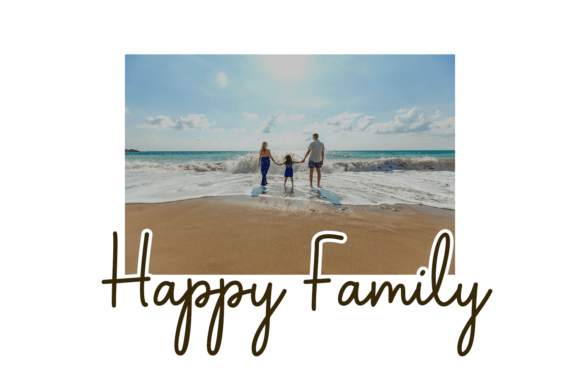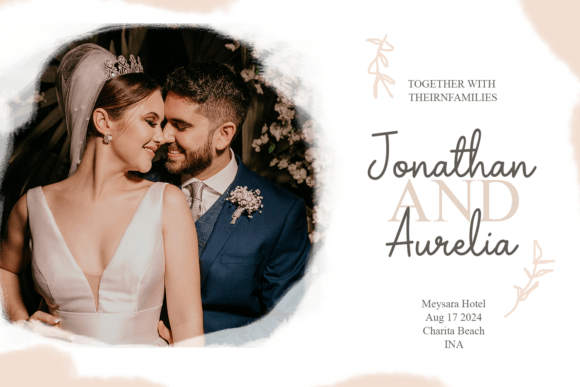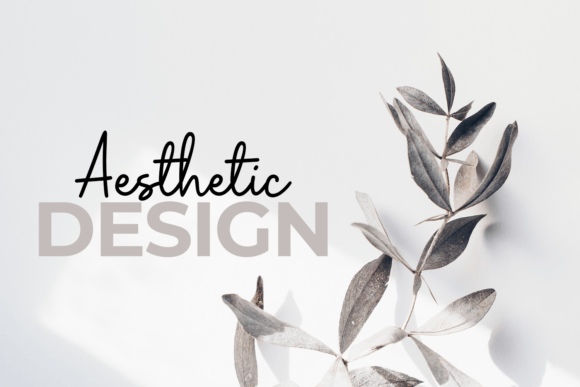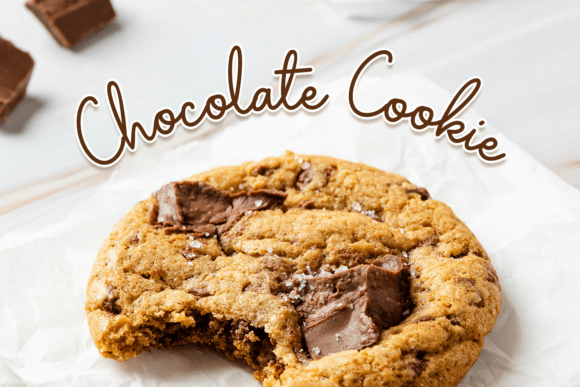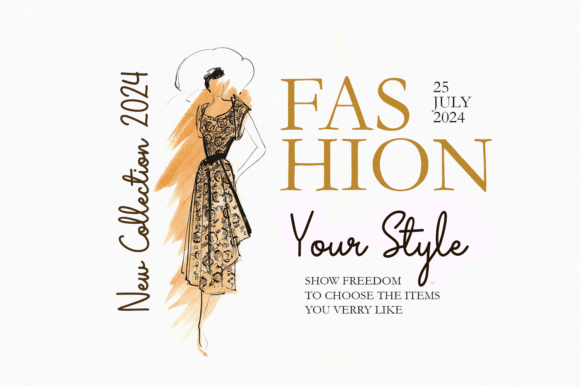
Introduction to Hello Julio Font
As a designer, you know that finding the perfect font can be a game-changer for your creative project. It’s that one element that brings your entire design together and makes it stand out. For me, that moment came when I stumbled upon the Hello Julio Font – a stunning handwritten script font that has been a favorite among designers ever since its release.
The Hello Julio Font is more than just a pretty face; it’s a valuable design resource that offers a unique combination of style and versatility. With its smooth, casual flow and natural pen-like texture, this font is perfect for adding a personal touch to your designs. And the best part? It’s available for free download, making it an accessible high-quality design resource for designers of all levels.
About the Hello Julio Font
The Hello Julio Font features a range of complementary styles, including connected script lowercase letters and non-connected uppercase letters with a monoline, hand-drawn feel. Whether you’re looking to add a touch of elegance to your design or create a bold, eye-catching headline, the Hello Julio Font has got you covered. And with its transparent background option, you can easily place it over any image or background, giving you complete creative control.
Hello Julio Font
- High-quality, unique font design perfect for creative projects, available for free download.
- Designed to be highly legible at various resolutions and sizes, making it ideal for digital and print applications.
- Unique characteristics include intricate details and subtle texture, adding a touch of elegance to any design.
- Available in a range of sizes, from 12pt to 72pt, allowing for flexible use in various design contexts.
Honest Review: Hello Julio Font
I recently stumbled upon the Hello Julio Font, and I’m excited to share my thoughts on this design resource. I downloaded it for free, and I must say, it’s been a great addition to my creative project.
What works well for me is the font’s versatility. It comes in a variety of styles, from casual to formal, making it suitable for a range of design needs. The transparent background is also a plus, as it allows for seamless integration with other design elements.
Here are some of the key features that I appreciate:
- High-quality design that’s perfect for print and digital projects
- Comes in various font styles to suit different design needs
- Transparent background for easy integration with other design elements
However, I do have a few concerns: ⚠️ the font may not be suitable for very small text sizes, and it may require some adjustments to achieve the desired look.
Overall, I’m impressed with the Hello Julio Font. It’s a high-quality design resource that’s perfect for designers looking for a versatile and free font to add to their collection. ✨ I’d definitely recommend it to anyone working on a creative project.
Hello Julio Font
Hello Julio Font is a versatile and stylish design resource that can elevate your creative projects. It’s available for free download, making it an excellent addition to your design toolkit.
Tips for Getting the Most Out of Hello Julio Font
To get the most out of Hello Julio Font, use it in combination with other design resources, such as graphics and textures. You can also experiment with different font sizes, colors, and effects to create unique and eye-catching designs.
Hello Julio Font is suitable for a wide range of creative projects, including logos, business cards, social media graphics, and presentations. Its high-quality design and transparent background make it an excellent choice for any design project.